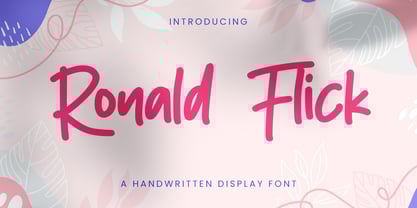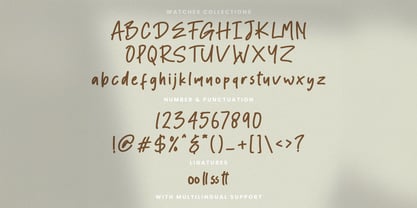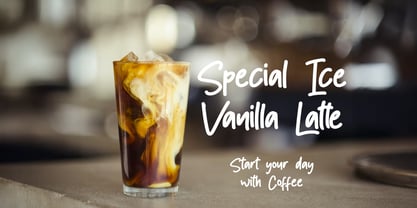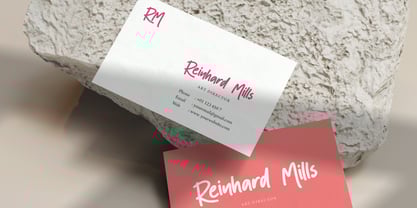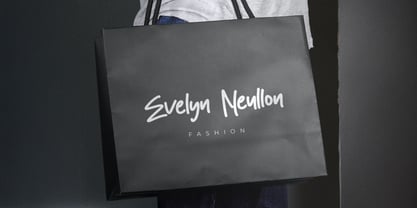
Ronald Flick
by Stringlabs Creative Studio
The Ronald Flick Font Family was designed by Virgiawan Listanto and published by Stringlabs Creative Studio. Ronald Flick contains 1 styles.
Ronald Flick is a clean and stylish handwritten font that brings a modern, personal touch to your design projects. With its smooth strokes and effortless flow, this font feels both professional and approachable perfect for adding character without losing clarity.
Designers: Virgiawan Listanto
Publisher: Stringlabs Creative Studio
Foundry: Stringlabs Creative Studio
Design Owner: Stringlabs Creative Studio